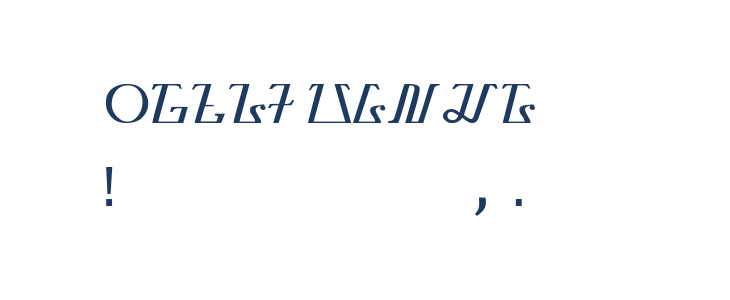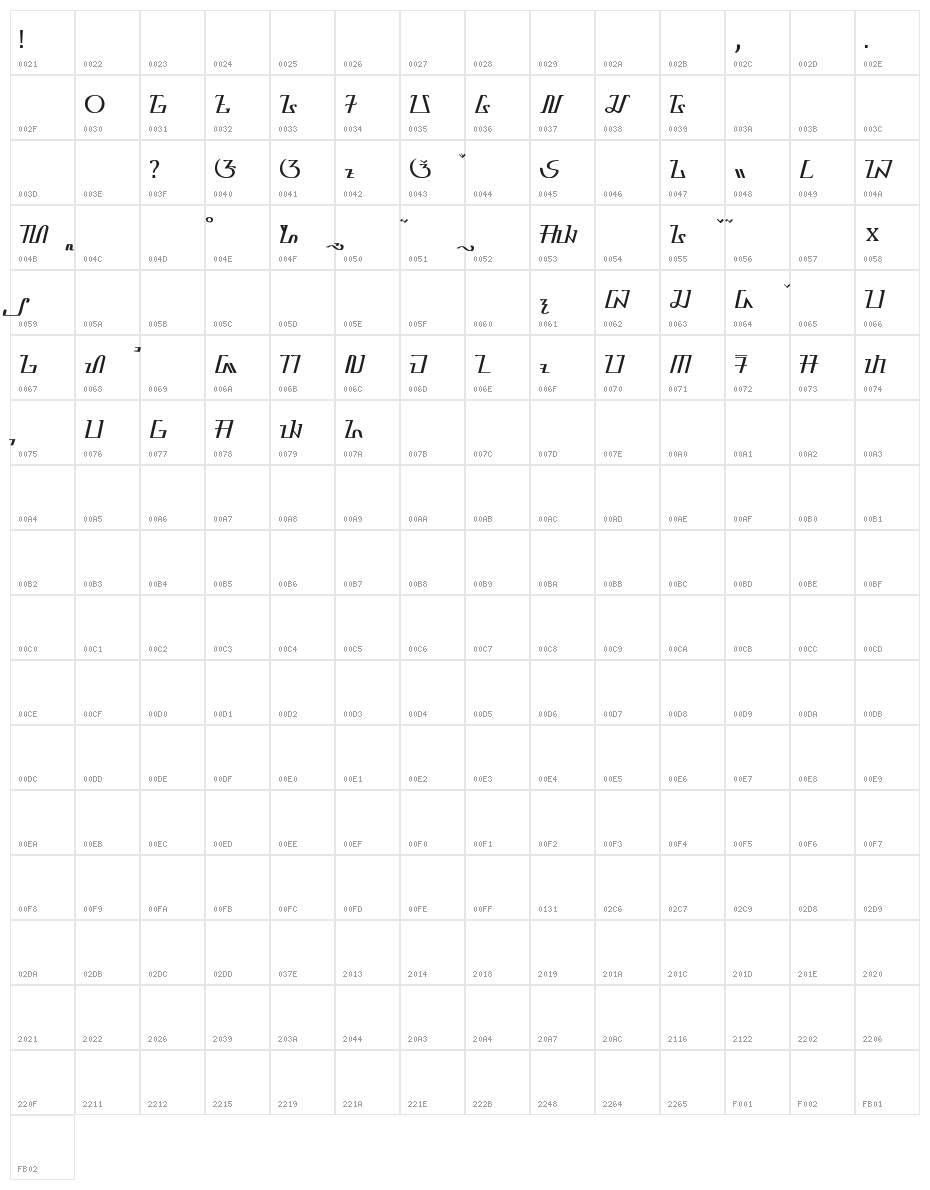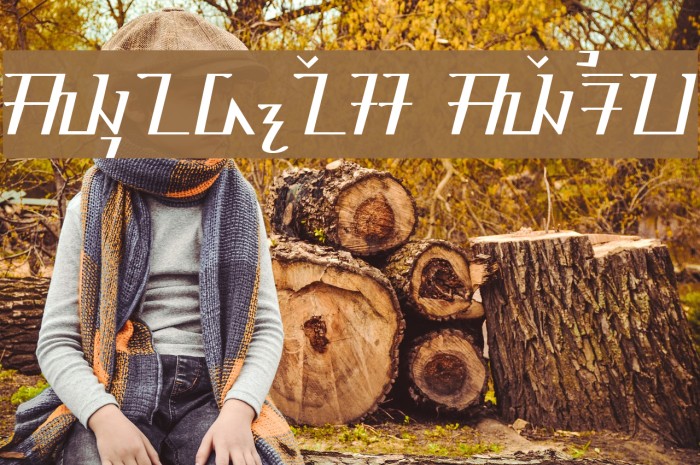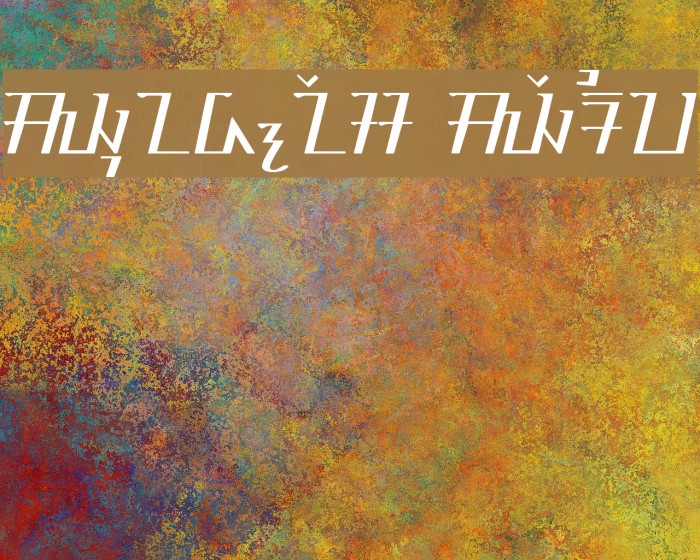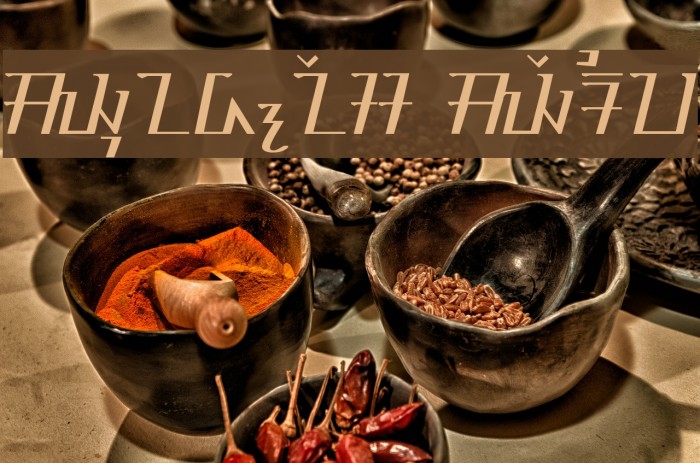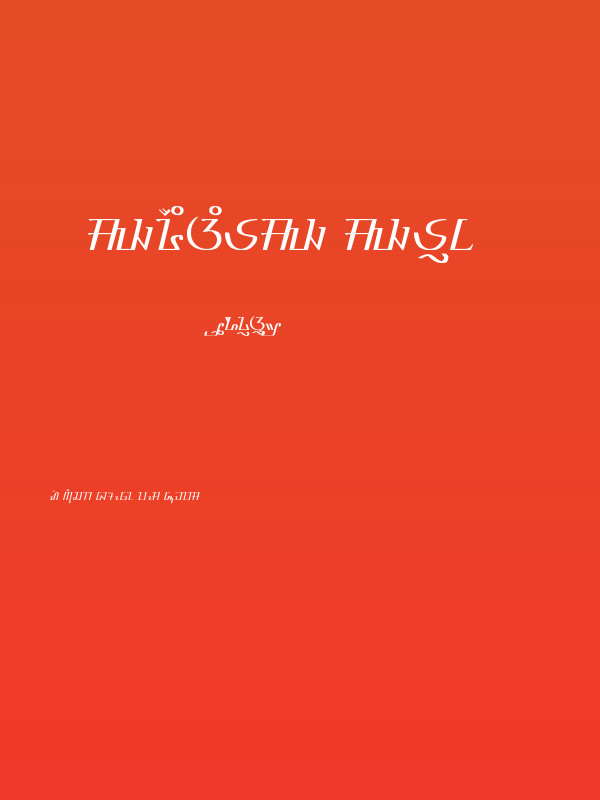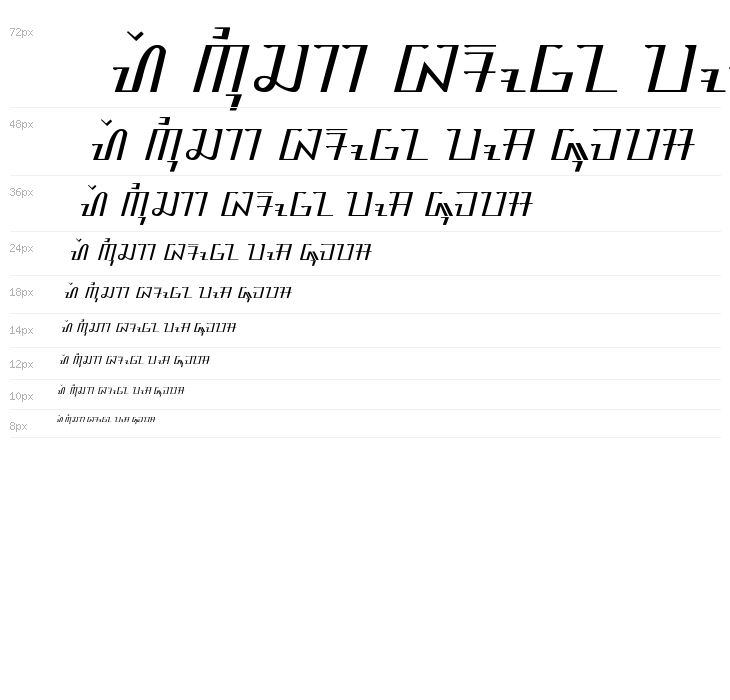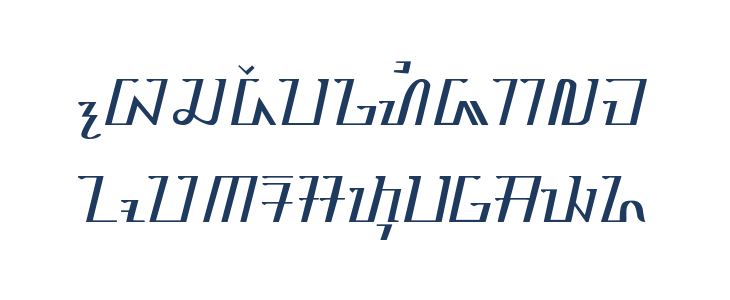
Sundanes Serif Font
Sundanes Serif Description
This font features a unique and artistic design with a blend of traditional and modern elements. The characters exhibit a distinctive flair with angular and curved strokes, creating a dynamic and visually engaging appearance. The font maintains a consistent stroke width, contributing to a harmonious and balanced look. Its decorative style is evident in the intricate details and embellishments present in each character, making it suitable for creative and expressive projects. The overall design is both bold and elegant, capturing attention with its striking visual impact.
| Proposed Projects | Ideal for branding, posters, artistic projects, and any design requiring a unique and expressive typeface. |